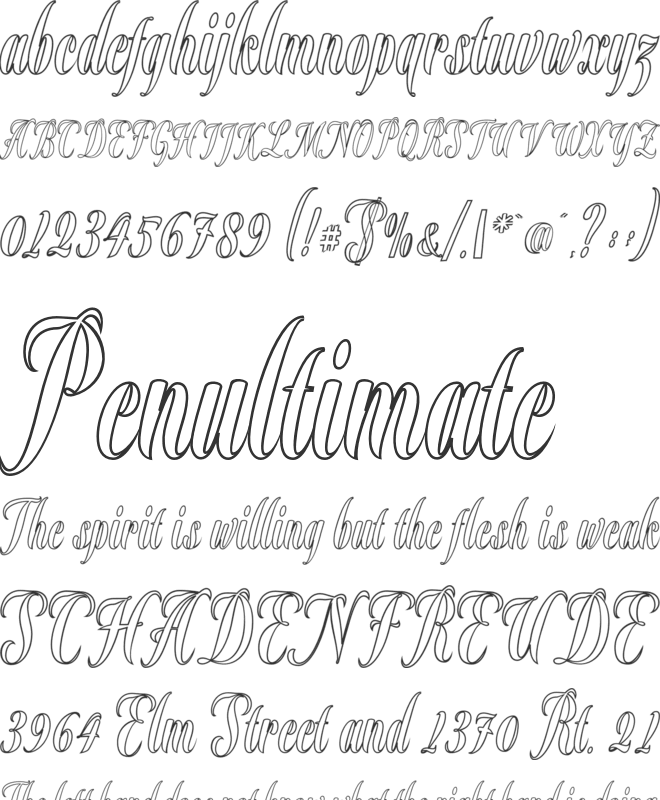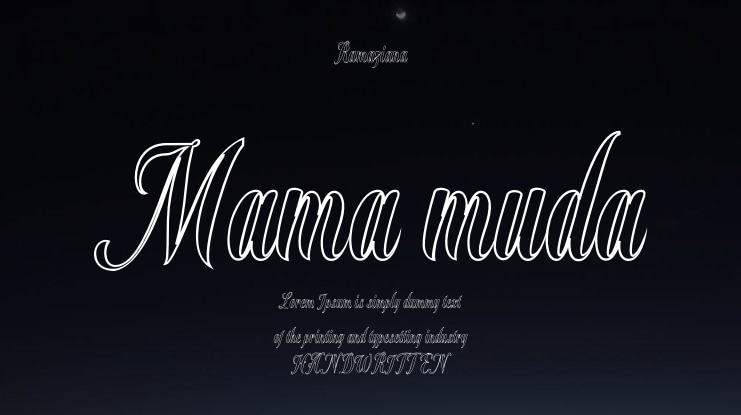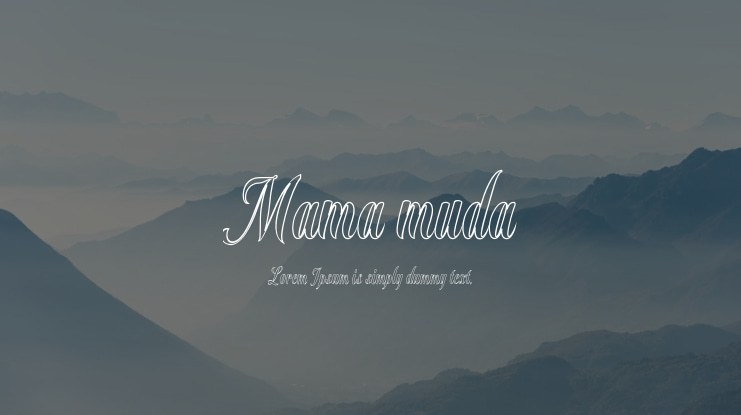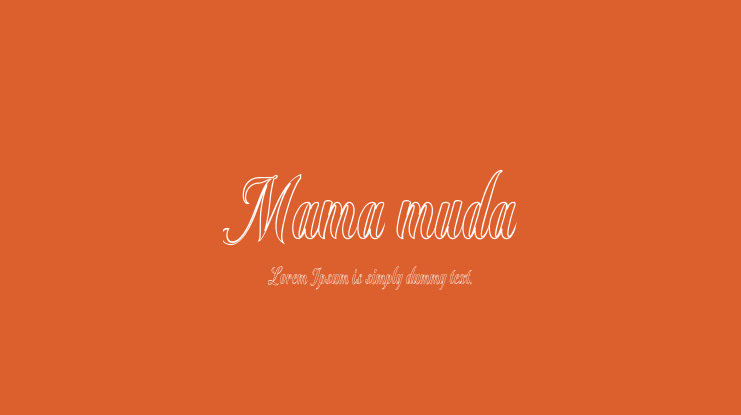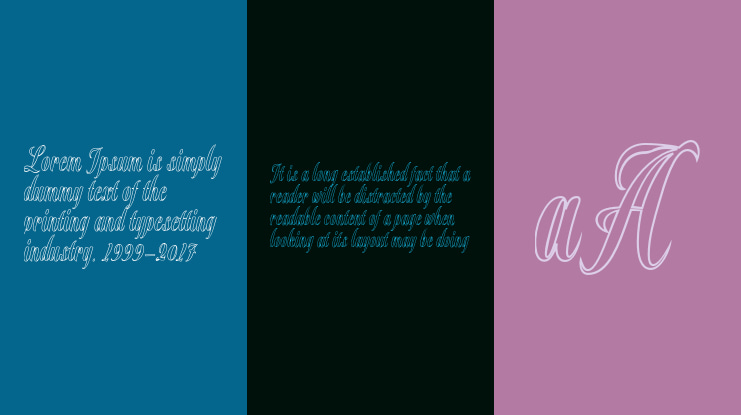
Mama muda Font
Ramaziana
Mama Muda is a delightful and casual handwritten font with an exceptionally friendly vibe. Whether you're searching for fonts for Instagram or calligraphy scripts for DIY projects, this font will transform any creative idea into a genuine work of art!